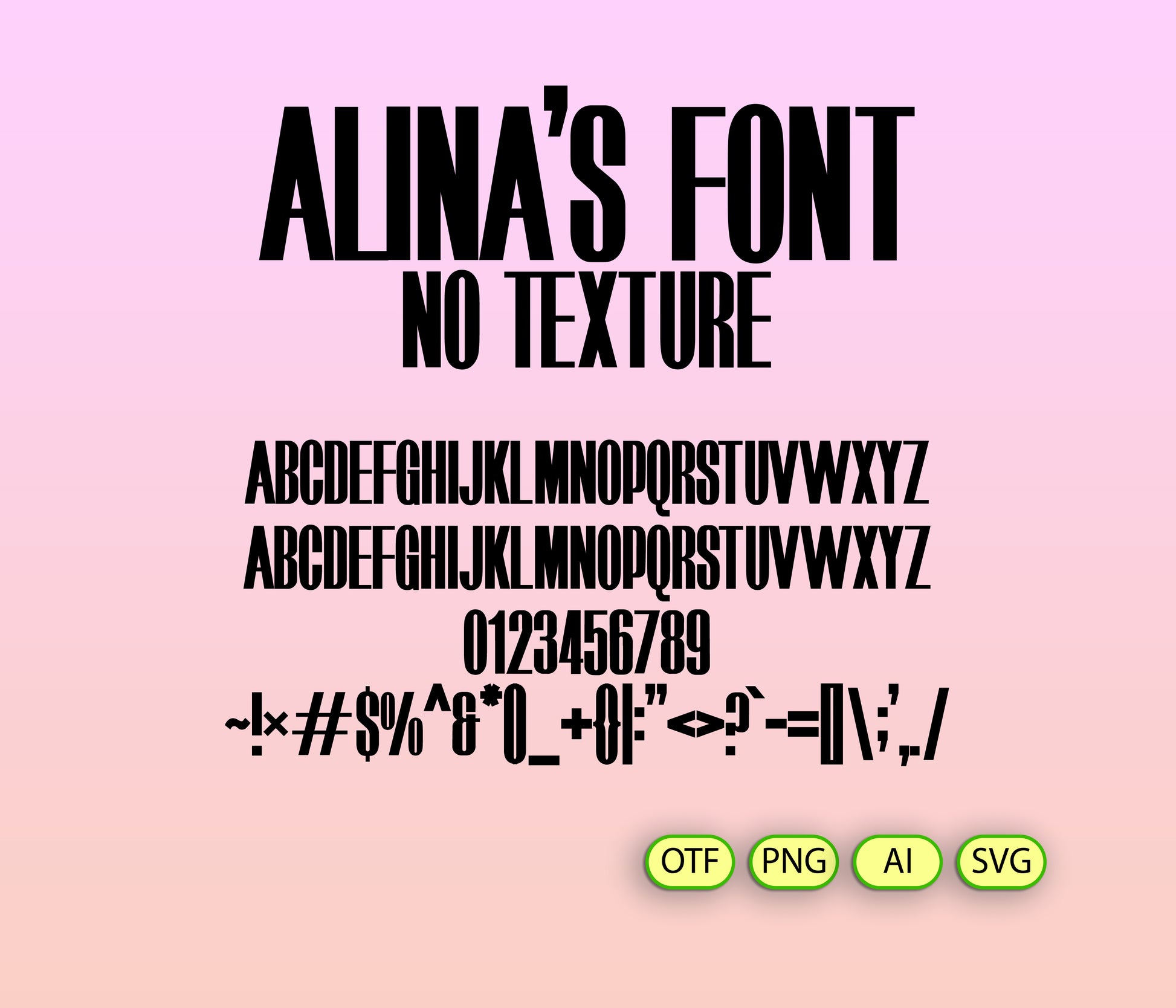
Magazine Font
Magazine Font: Sleek and Stylish
Elevate your editorial designs with the Magazine font, a typeface crafted for modern, stylish publications. This font is ideal for creating a sophisticated and polished look, perfect for fashion, lifestyle, and business magazines.
Magazine font features clean, elegant lines with a contemporary flair, designed to enhance readability while adding a touch of luxury to page layouts. Its versatility makes it suitable for headlines, captions, and body text, offering a cohesive look across all sections of a publication.
Whether you're designing a feature article, a cover page, or promotional material, the Magazine font provides a refined aesthetic that captures the essence of high-end publishing.